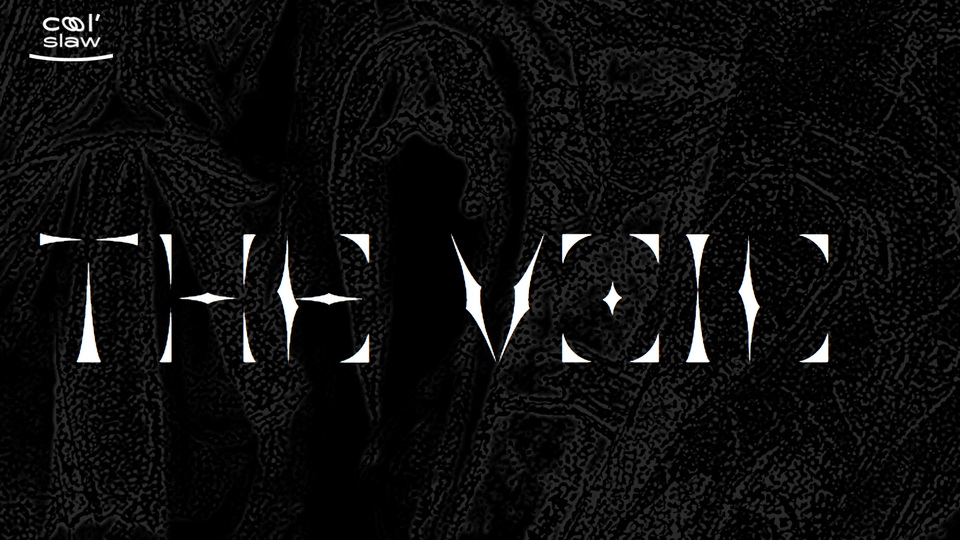
Download The Void font, a display typeface that extracts the element of magic and derives the idea of emptiness. The limitation of dimension to create The Void font is multiple dimensions are combined and reorganized to form the most special existence in the universe.